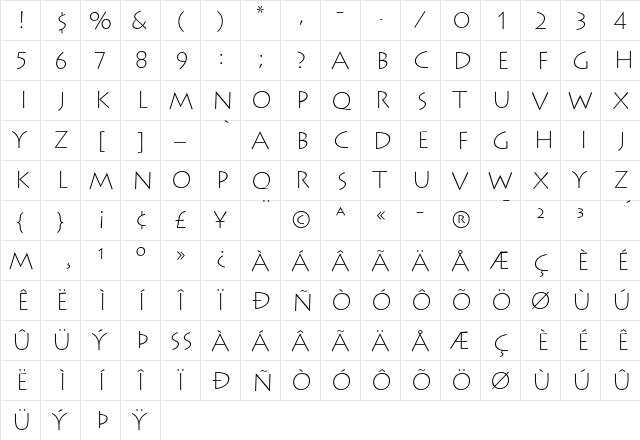
Lithos ExtraLight Regular
Design Context for Lithos ExtraLight Typeface
Lithos ExtraLight takes a measured approach to typography — its balanced proportions and neutral character make it a reliable workhorse for both digital and print work. Its slender proportions lend an understated elegance to any composition.